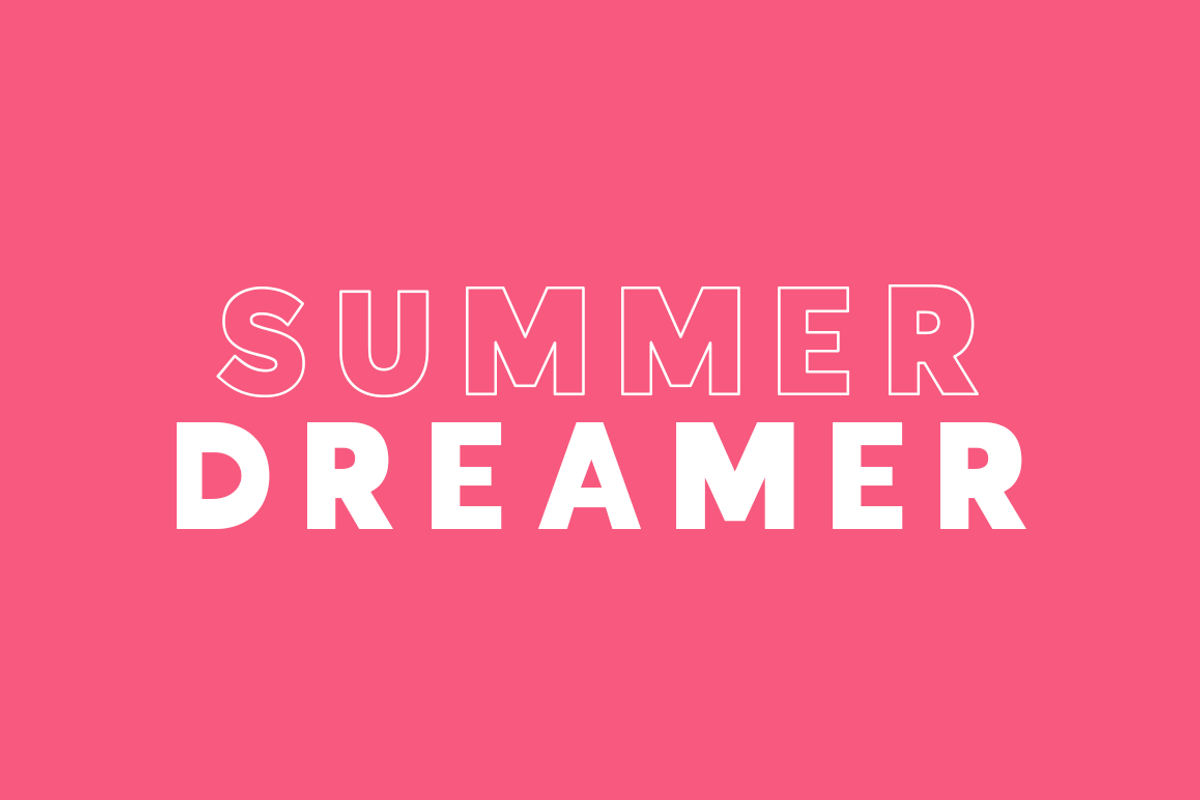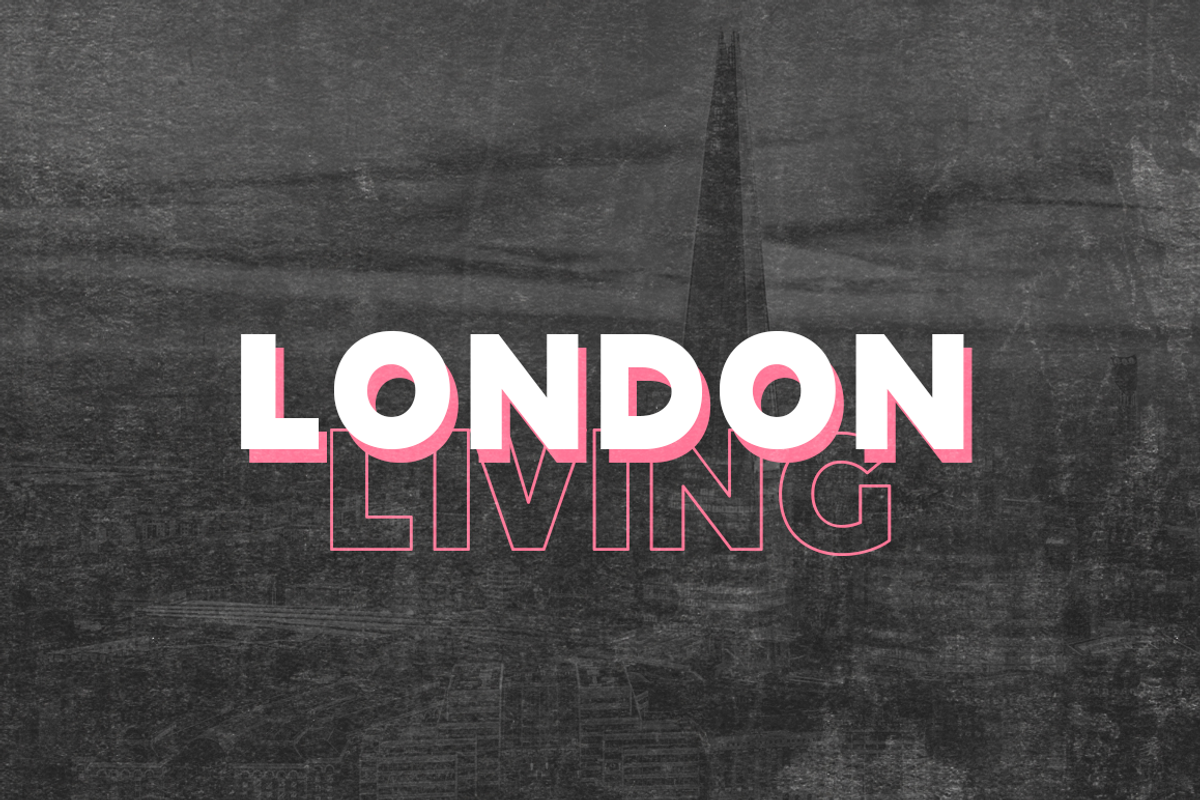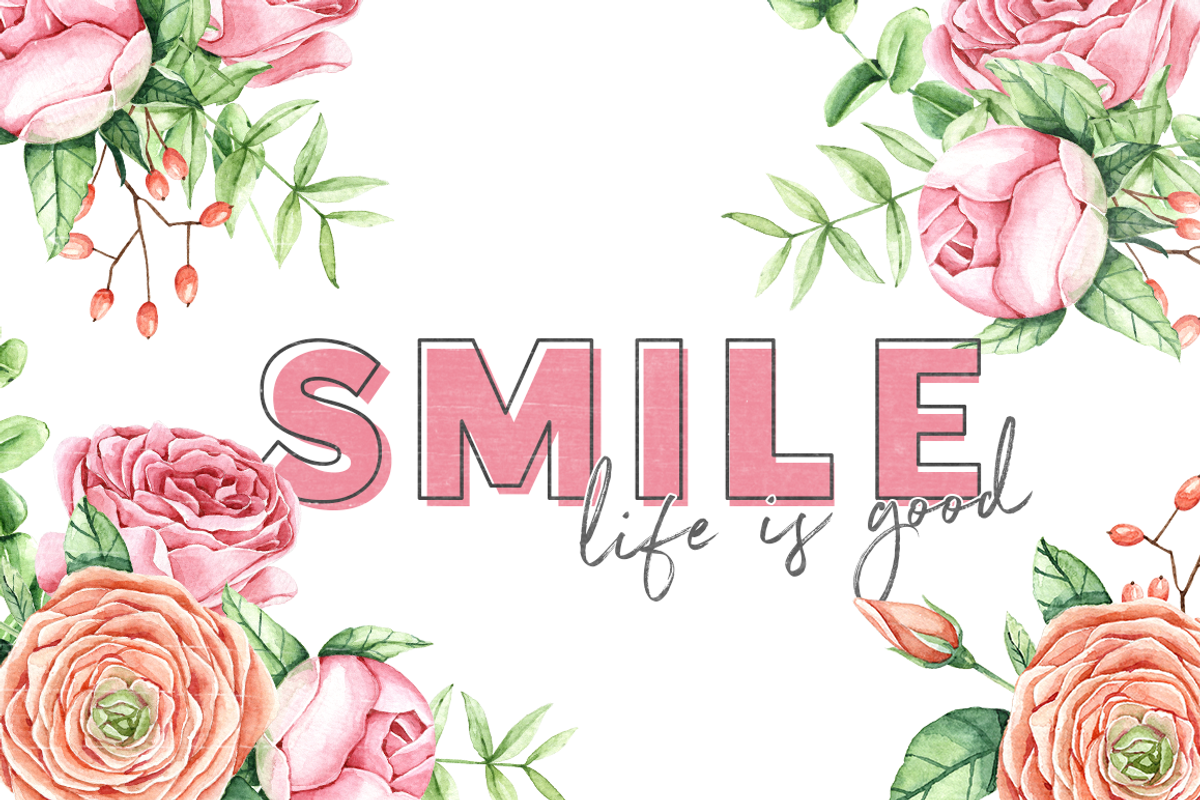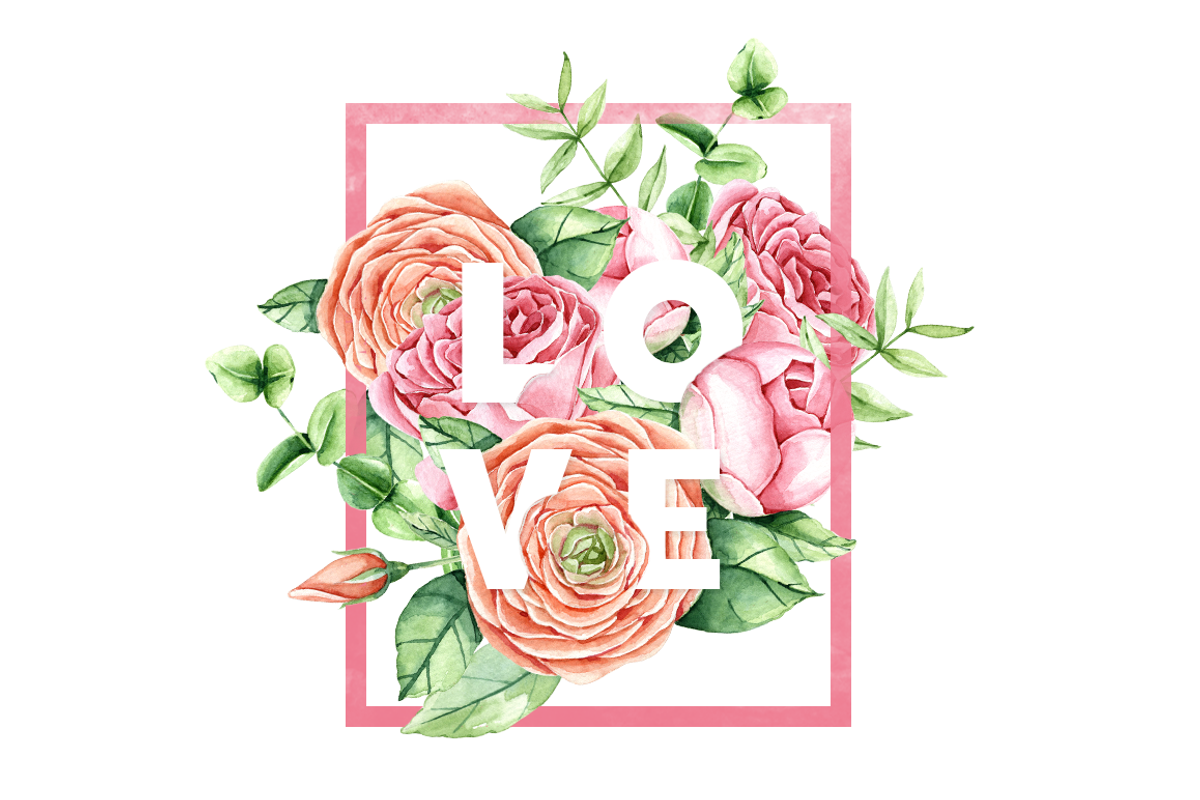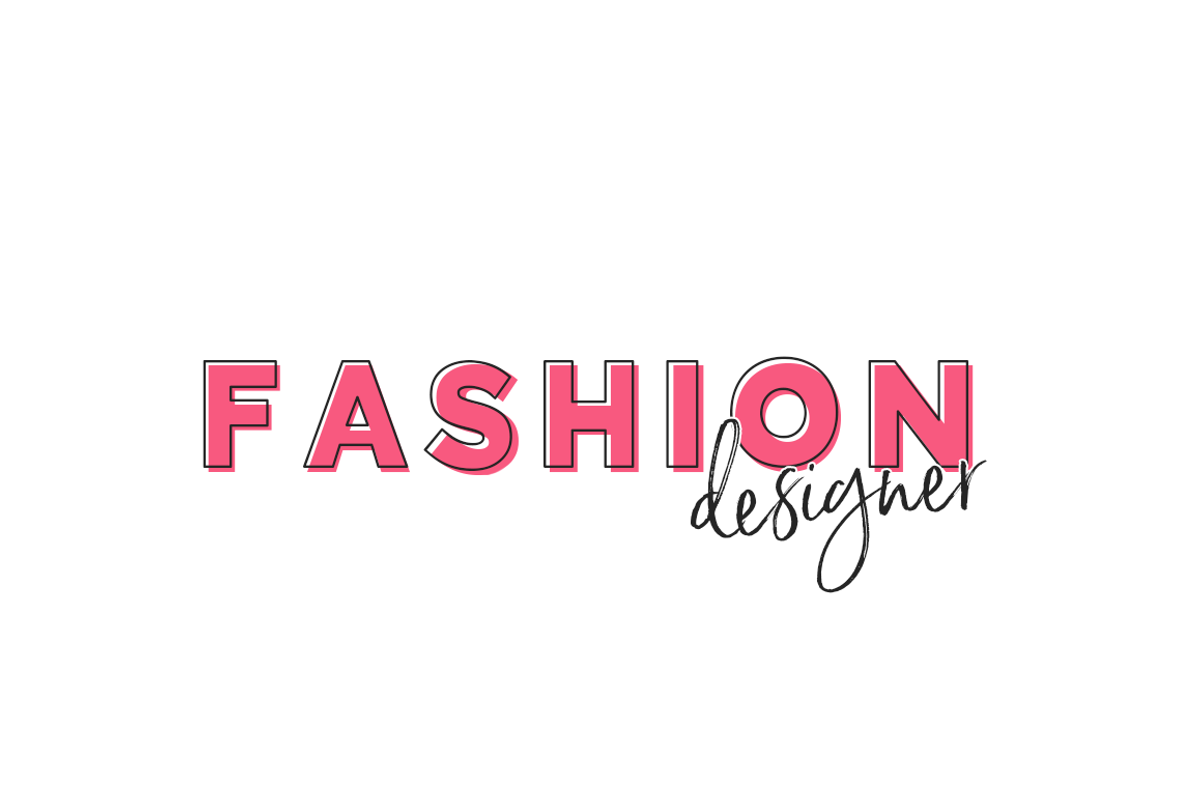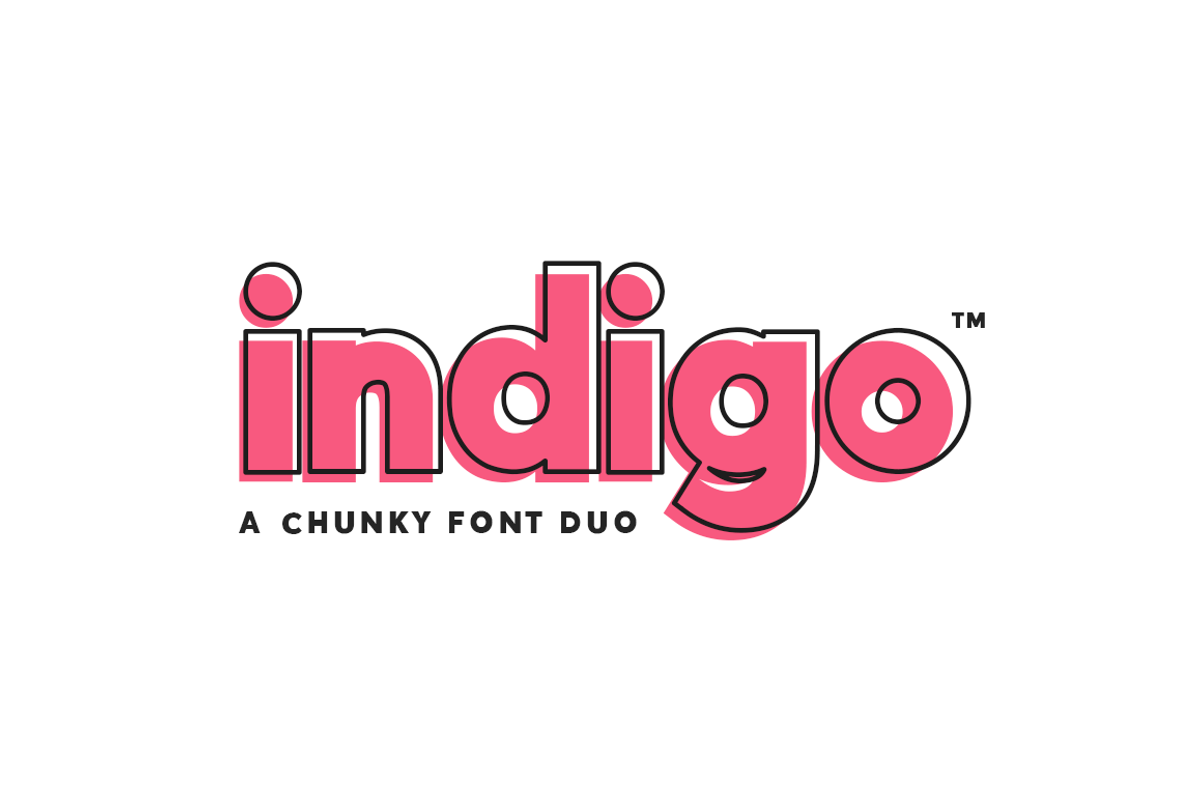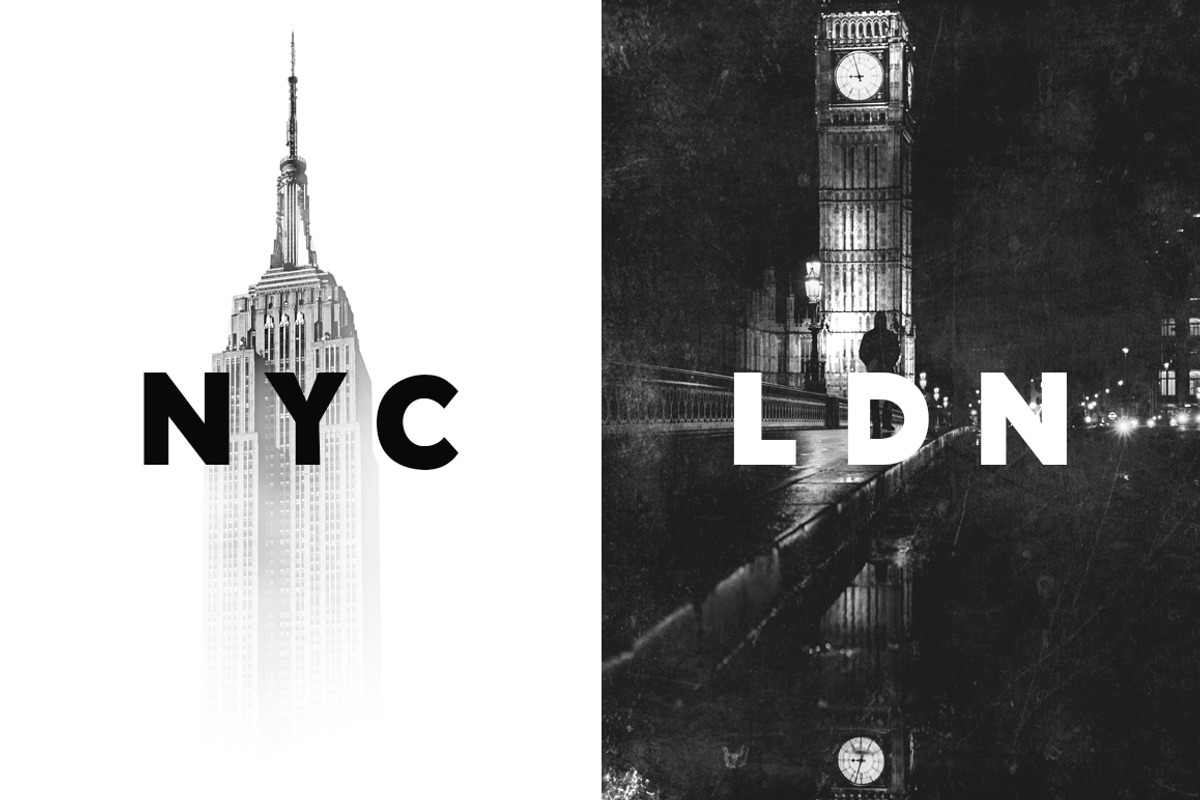
Indigo Sans Serif (Font Duo)
Our brand new font duo 'Indigo' won't give you the blues.. It's a fab combo of the sans serif 'Indigo Regular' and the outline version 'Indigo Outline'. Combine the two for sophisticated yet edgy designs or be bold enough to use them alone. Perfect for stand-out headers, Instagram posts, Logos, web design and much more. Enjoy for ONLY $14
This font supports English, French, Spanish and German characters.